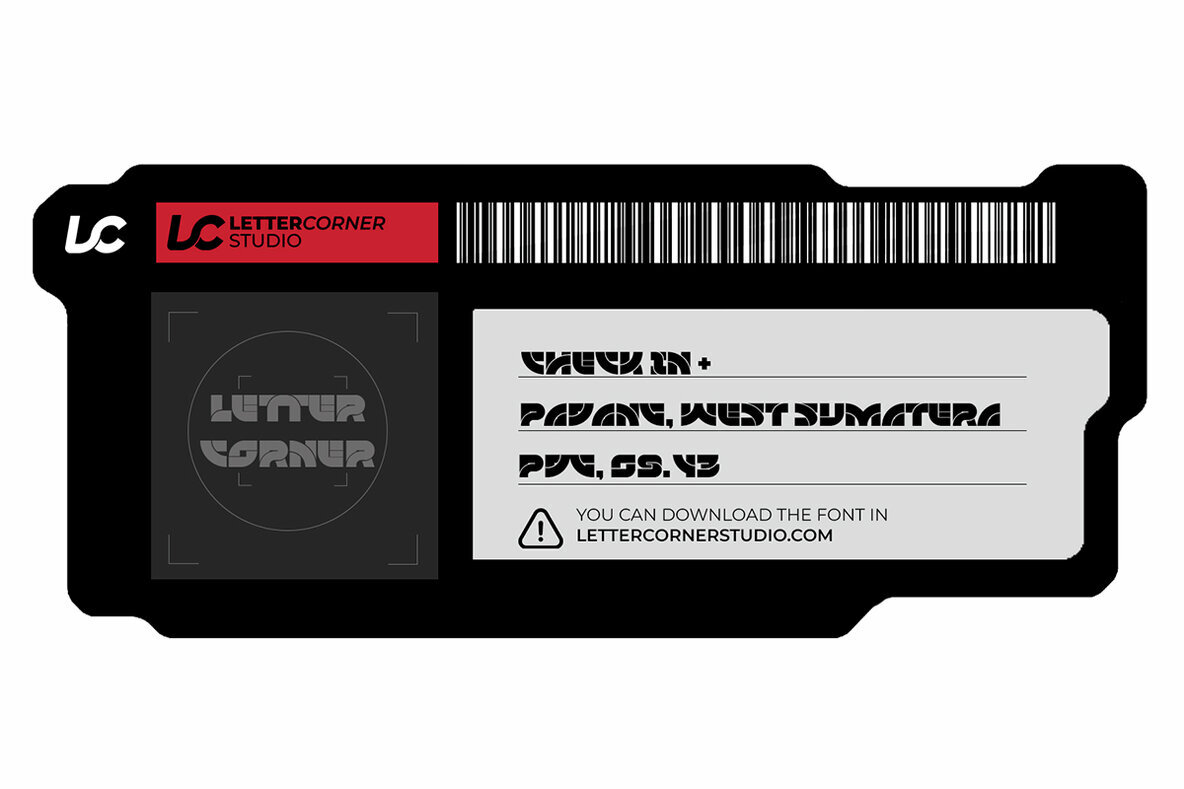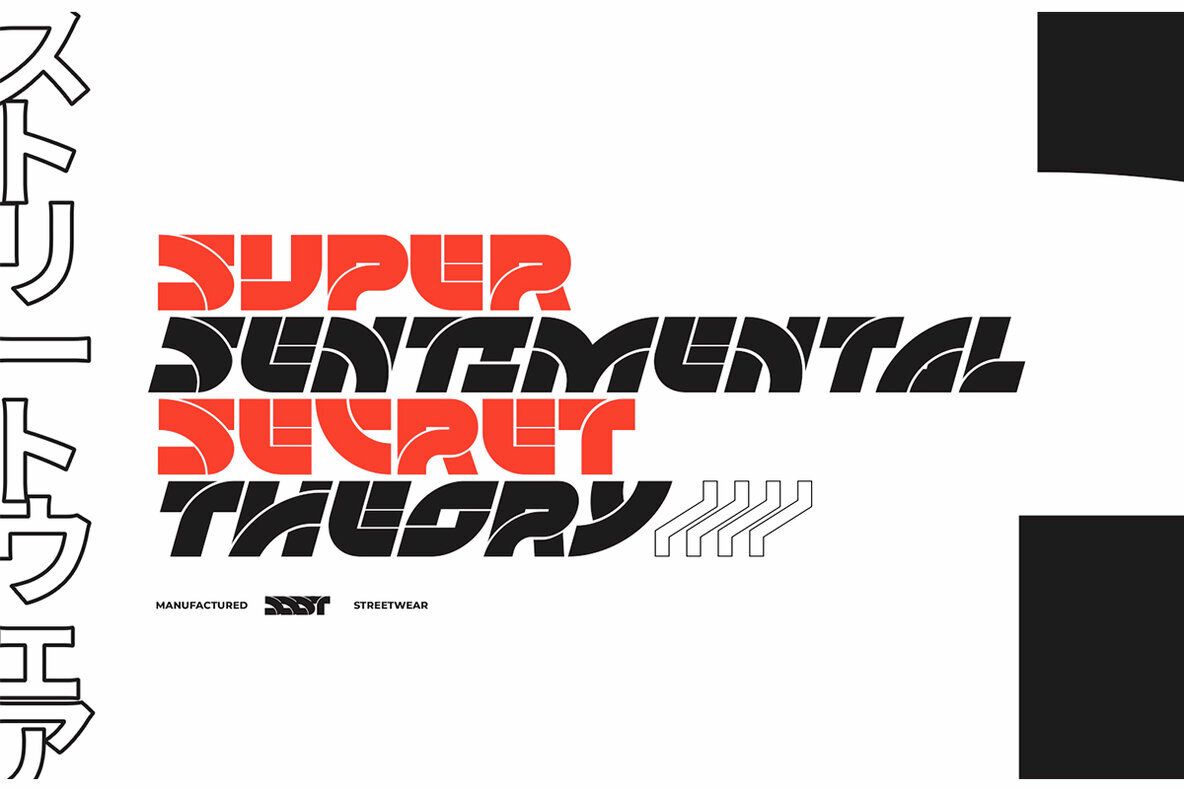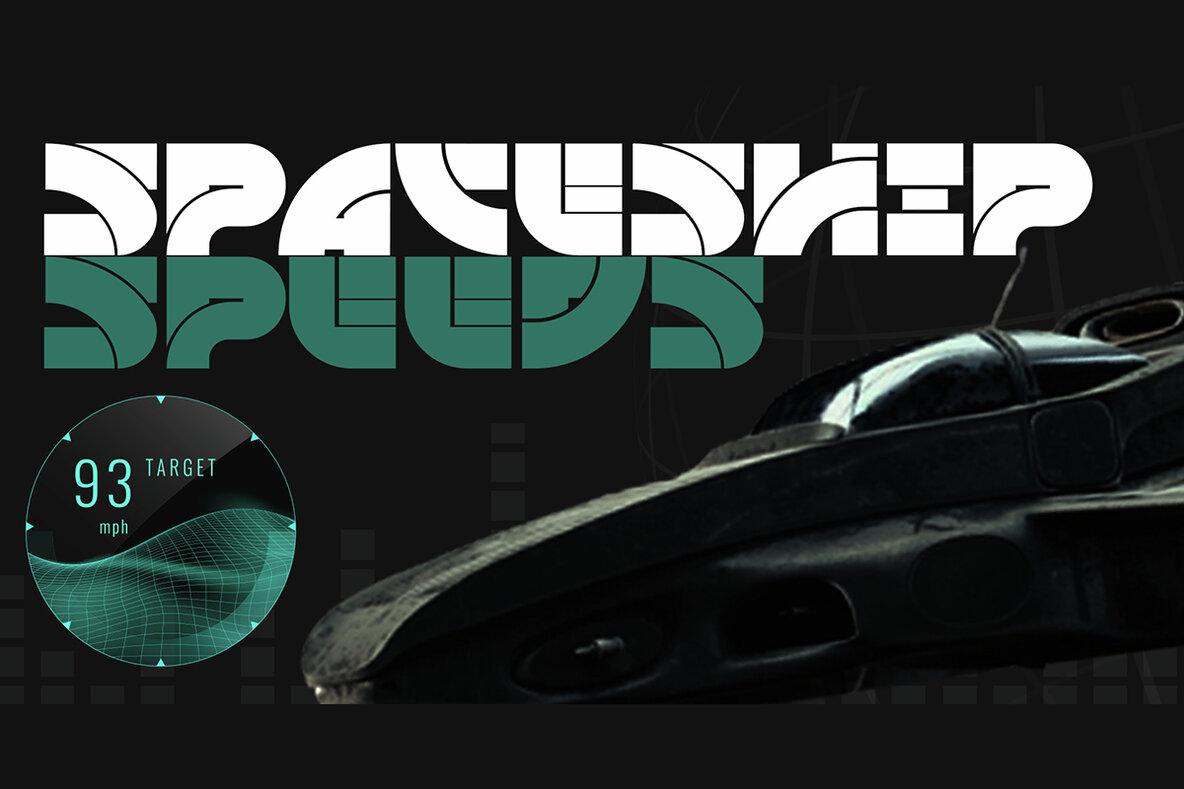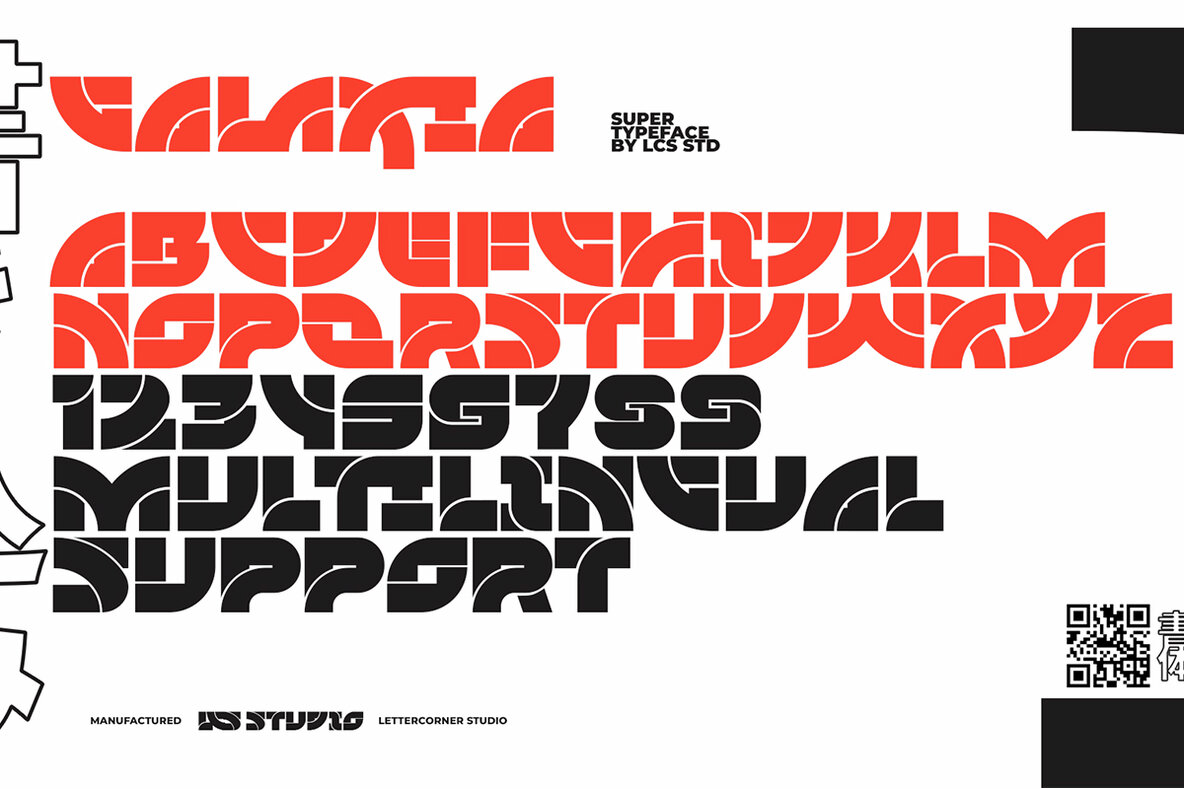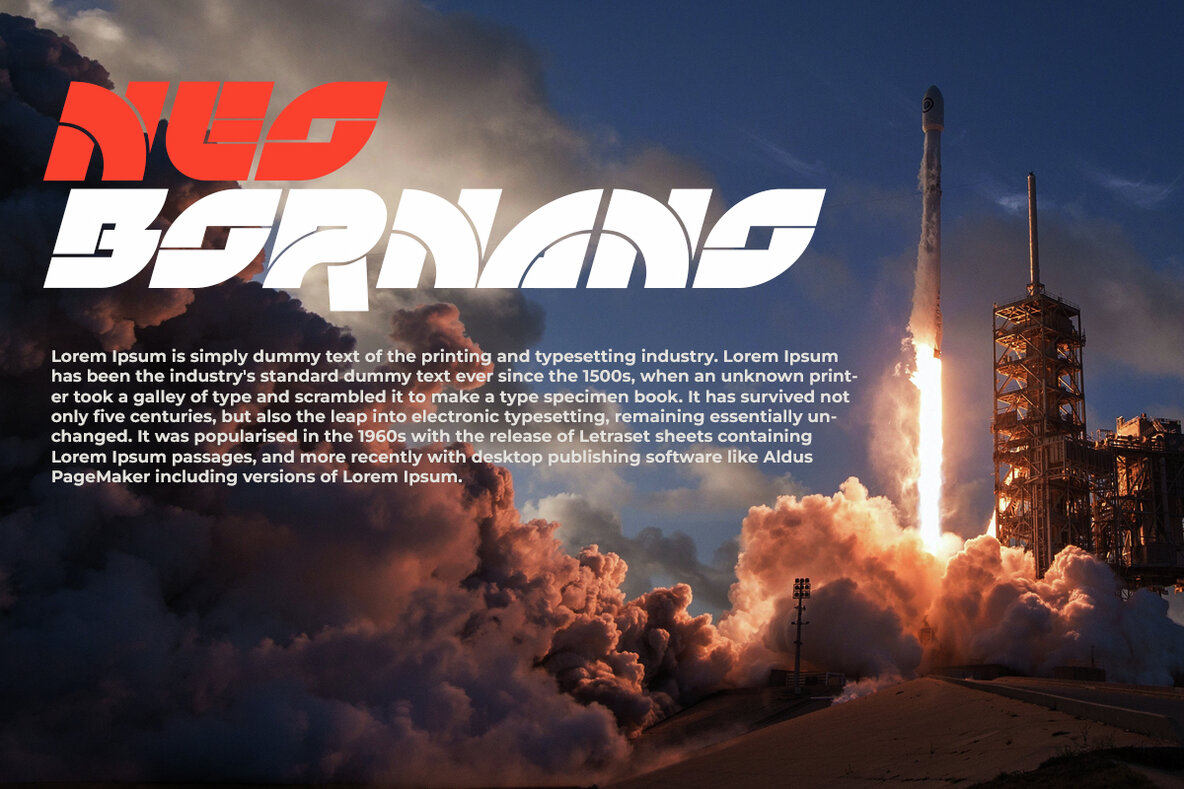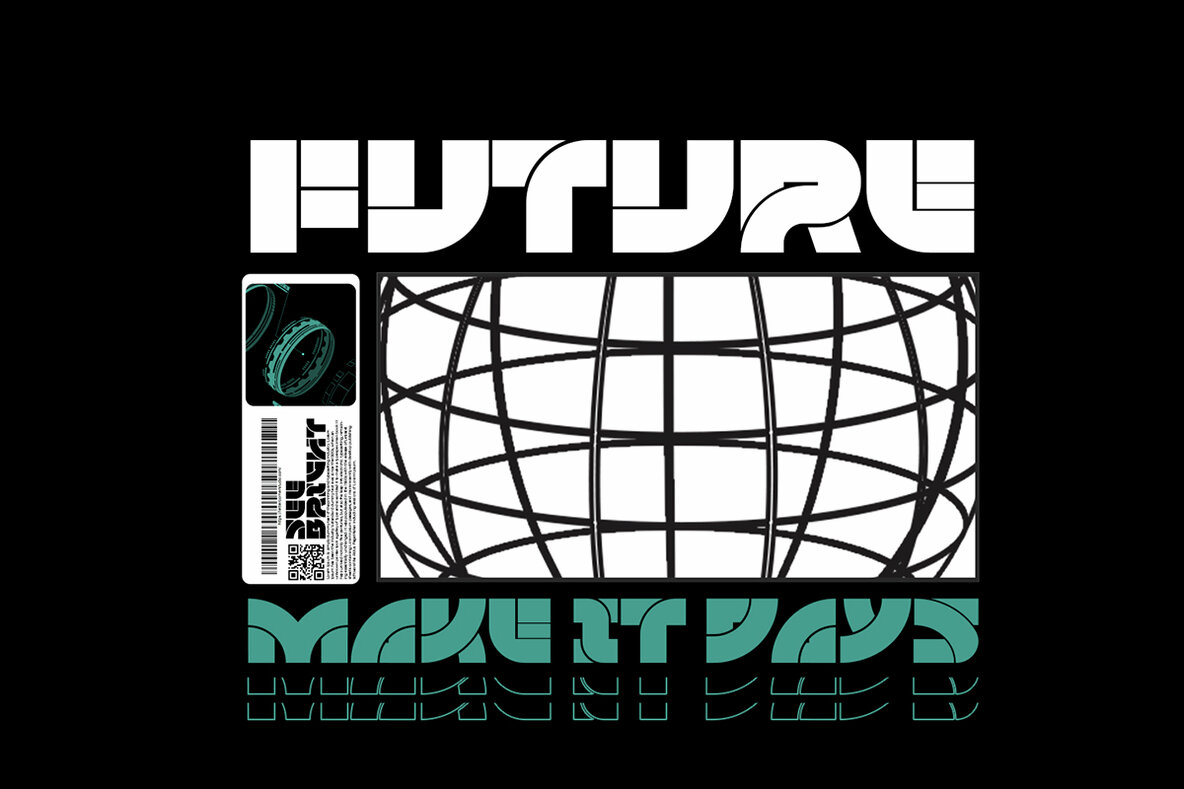
Galaxia Font
Galaxia created by Muhammad Afif Ersya is a futuristic modern font that features characters, multilingual, numbers & punctuation. It’s well suited for use in the tech & gaming space for logos, titles, packaging, web design, apps & much more.